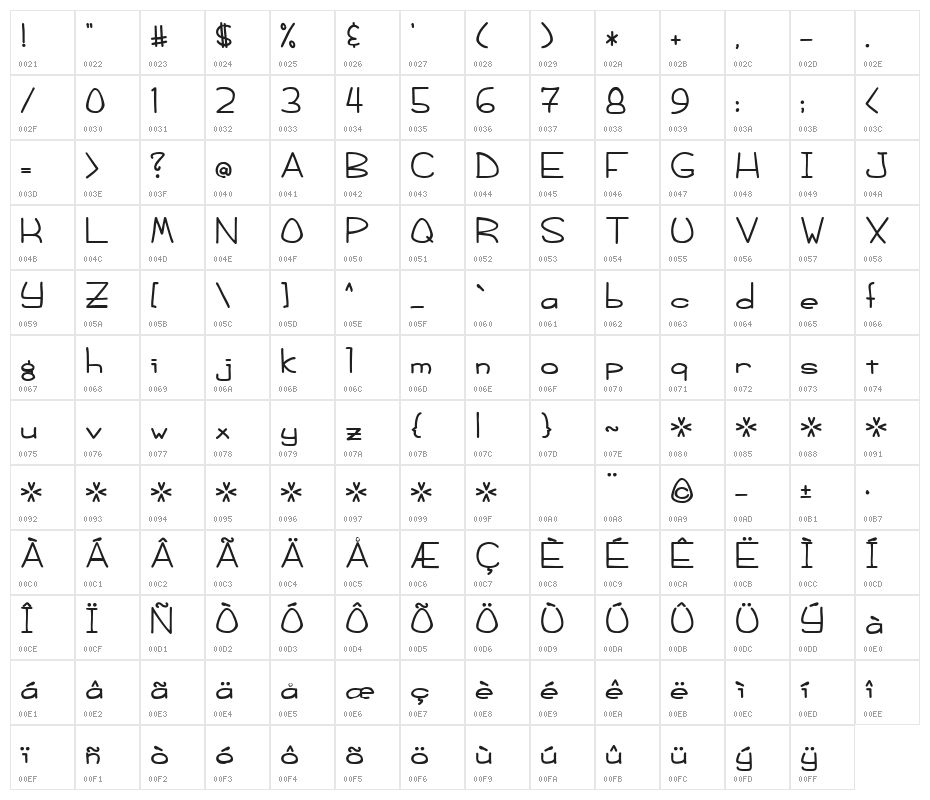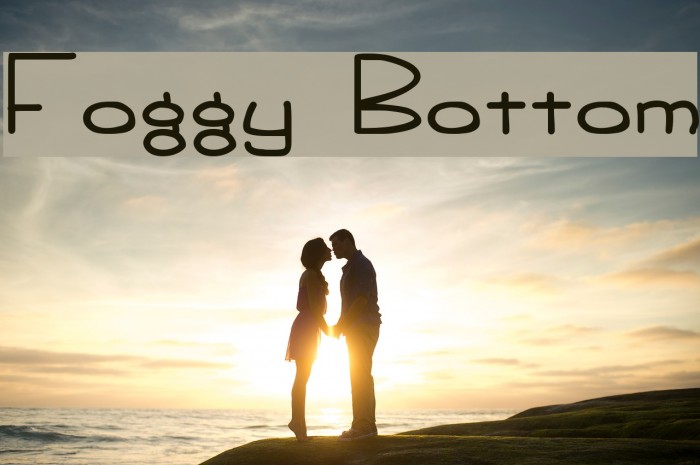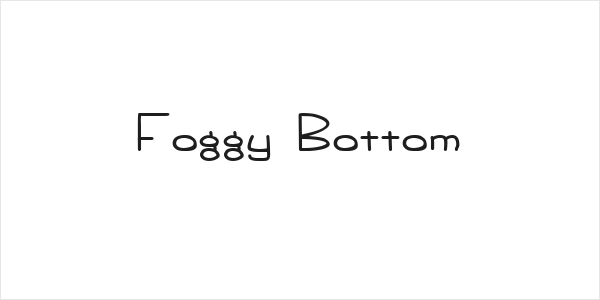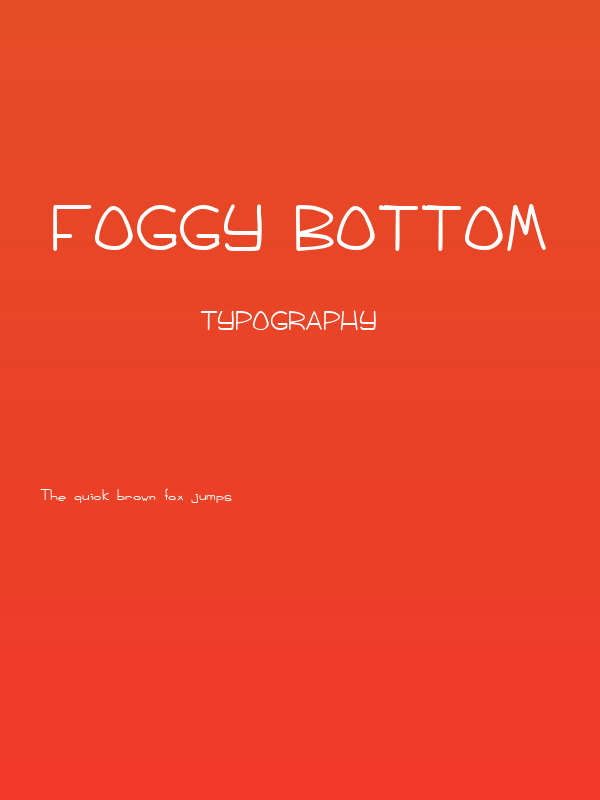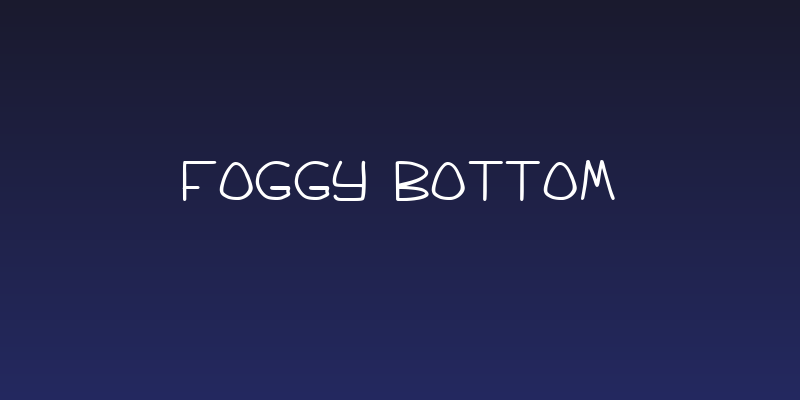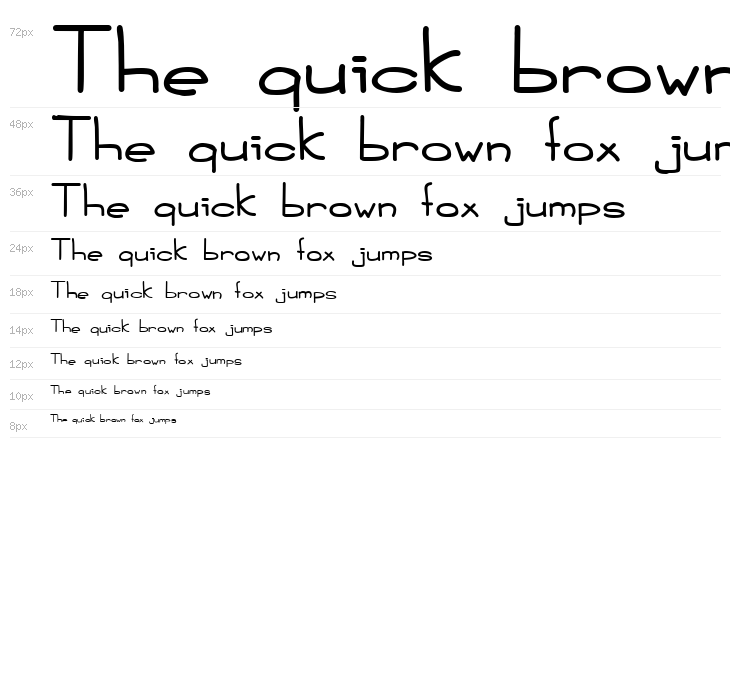
Foggy Bottom Font
Foggy Bottom Description
This playful and whimsical font features a handwritten style with rounded edges and a casual appearance. The characters are slightly irregular, giving it a friendly and approachable feel. The uppercase letters maintain a consistent height, while the lowercase letters have a more varied baseline, adding to the informal look. The numbers are bold and clear, making them easy to read. Special characters are included, maintaining the same playful style. This font is perfect for projects that require a personal touch or a fun, lighthearted vibe.
| Proposed Projects | Ideal for children's books, greeting cards, casual branding, and playful social media graphics. |